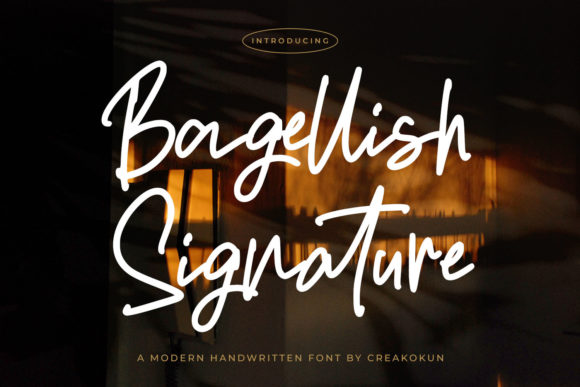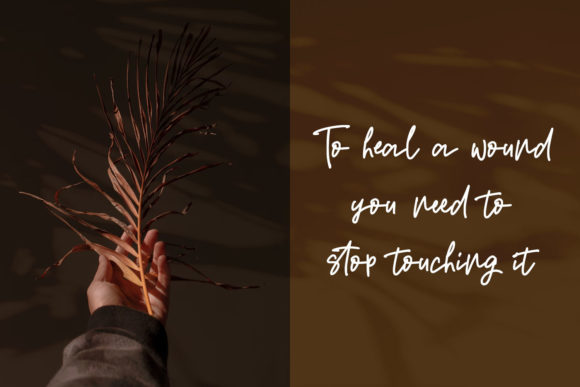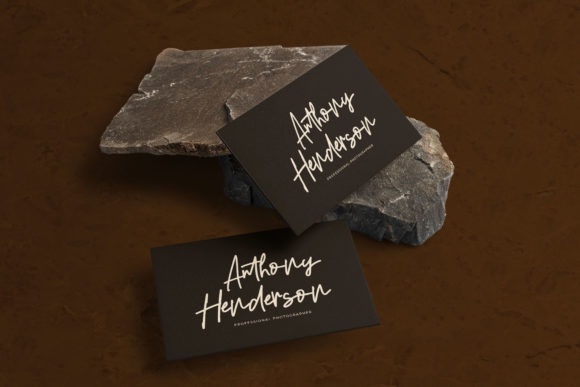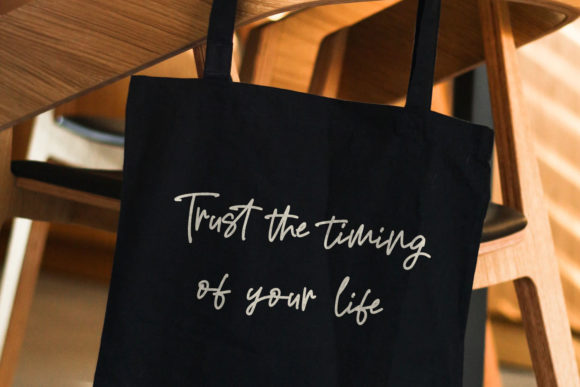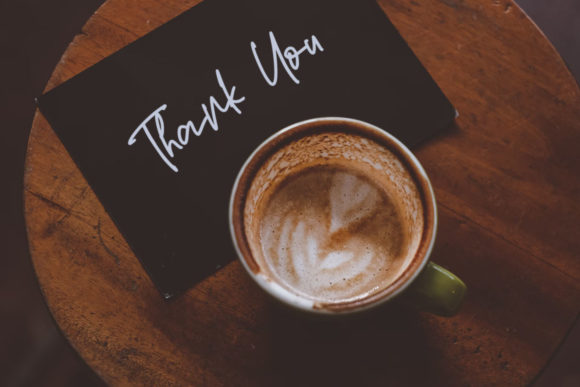
Bagellish Signature Font
About Bagellish Signature Font
Bagellish Signature is a modern and quirky looking handwriting font. Fall in love with its relaxed style and use it to create great cards, stationary art, social media posts, and much more! This font is PUA encoded which means you can access all glyphs and swashes with ease!